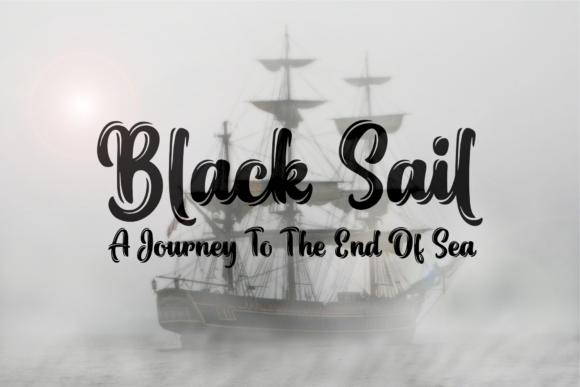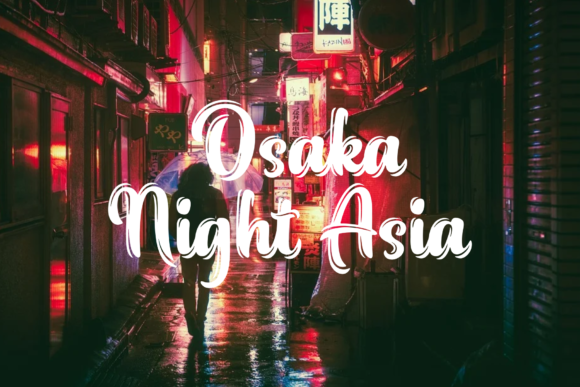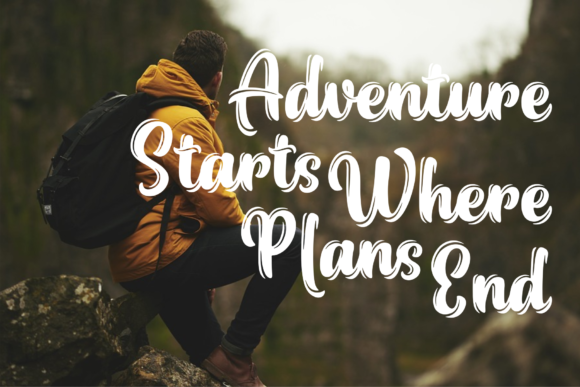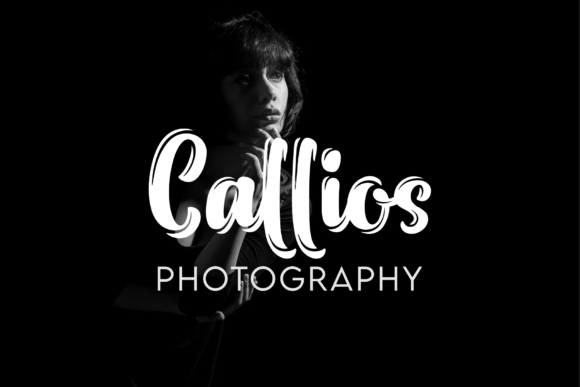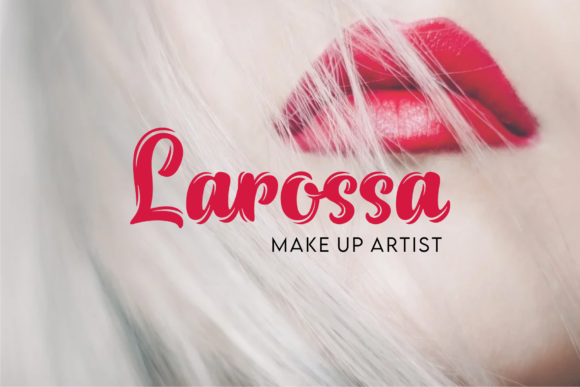
Nearly Brush Font
About Nearly Brush Font
Nearly Brush is bold, stylish and elegant handwritten font with distinctive strokes. Its round letters will add a luxury spark to any design project that you wish to create! This font is PUA encoded which means you can access all of the amazing glyphs and ligatures with ease!